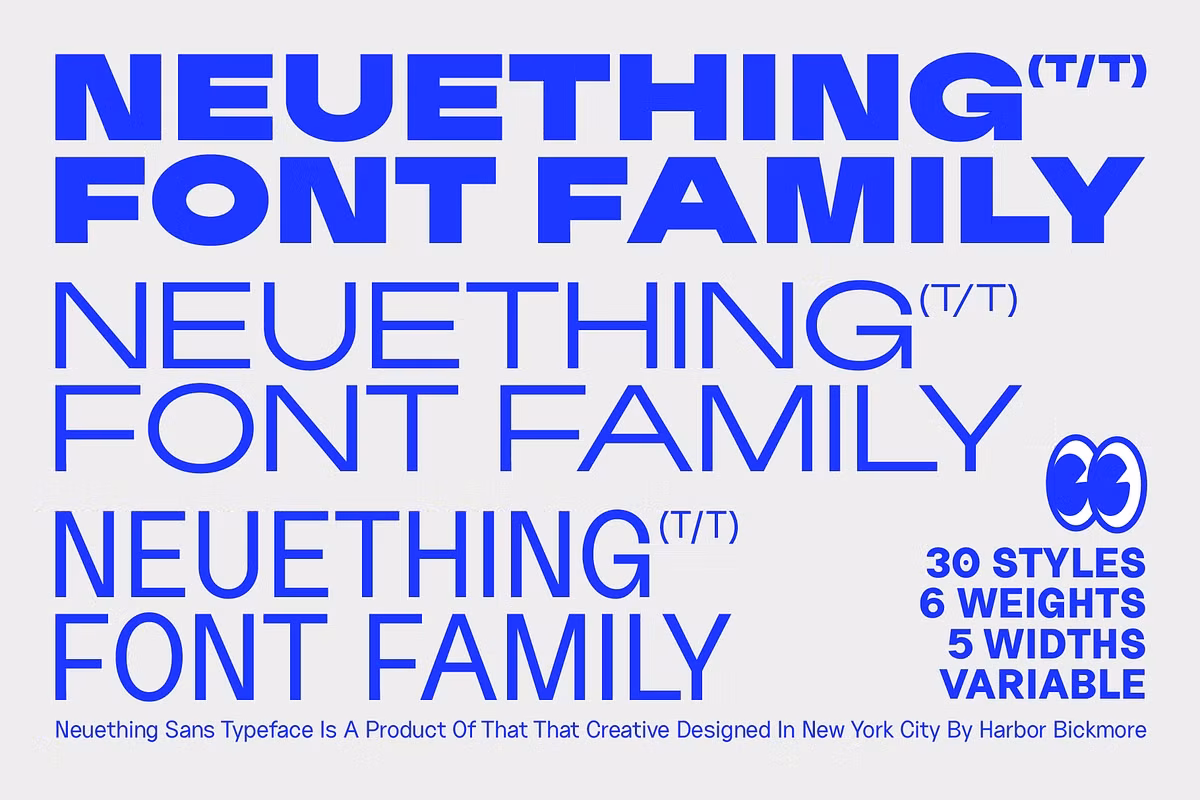
The Neuething Sans Family: 30 Fonts Free Download is an extensive collection of modern sans-serif fonts, offering a wide range of weights and styles for versatile use. Perfect for a variety of design projects, from branding and logos to websites, presentations, and print materials, this family provides everything you need to create clean, contemporary typography.
With 30 different fonts in the family, you'll have a vast selection of weights, from ultra-light to ultra-bold, to suit any design need. The clean, minimalistic design of Neuething Sans ensures great legibility and a modern aesthetic, making it ideal for both large display text and body copy.
The Neuething Sans Family includes uppercase and lowercase letters, numbers, punctuation, and multilingual support, making it a perfect solution for global and multi-lingual projects.